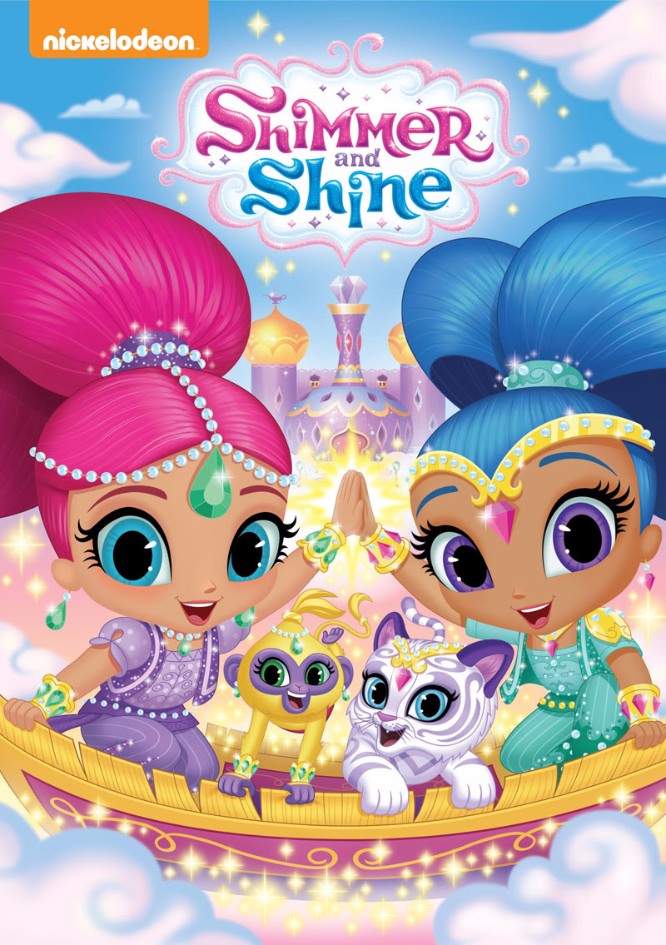
Shimmer and Shine Font
AnimationShimmer and Shine is an animated children's television series about two genie sisters who grant wishes for their human best friend, Leah. The series is created by Farnaz Esnaashari-Charmatz and airs on Nickelodeon.
The Shimmer and Shine logo of the tv series uses a font that is similar to an Art Nouveau brush-type font called Gloria designed by Peter Wiegel. The font is free for both personal and commercial use. You can download it for free in the Fonts Used Section.